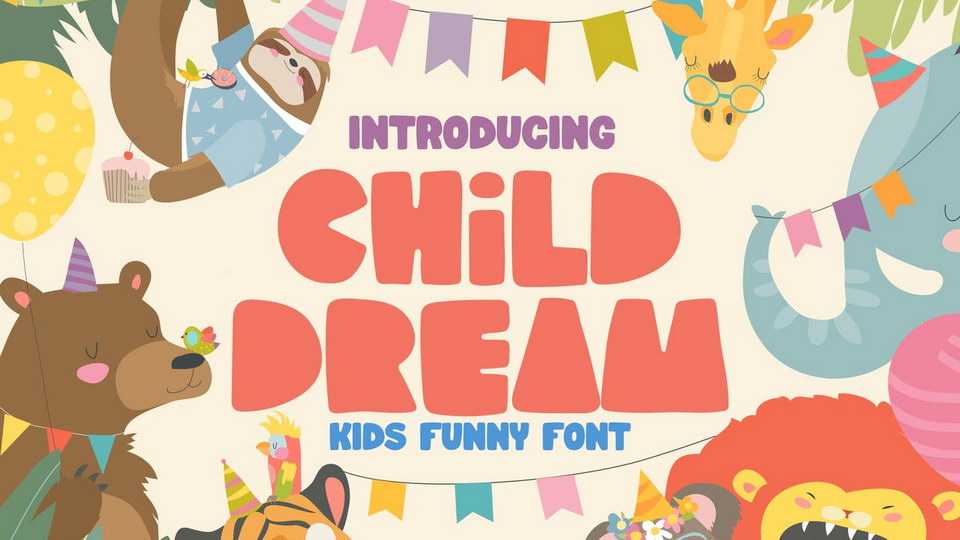
Download Child Dream font, a display typeface with a blocky shape and a lot of joy in it. Child Dream will emphasize on every word you put on the screen.